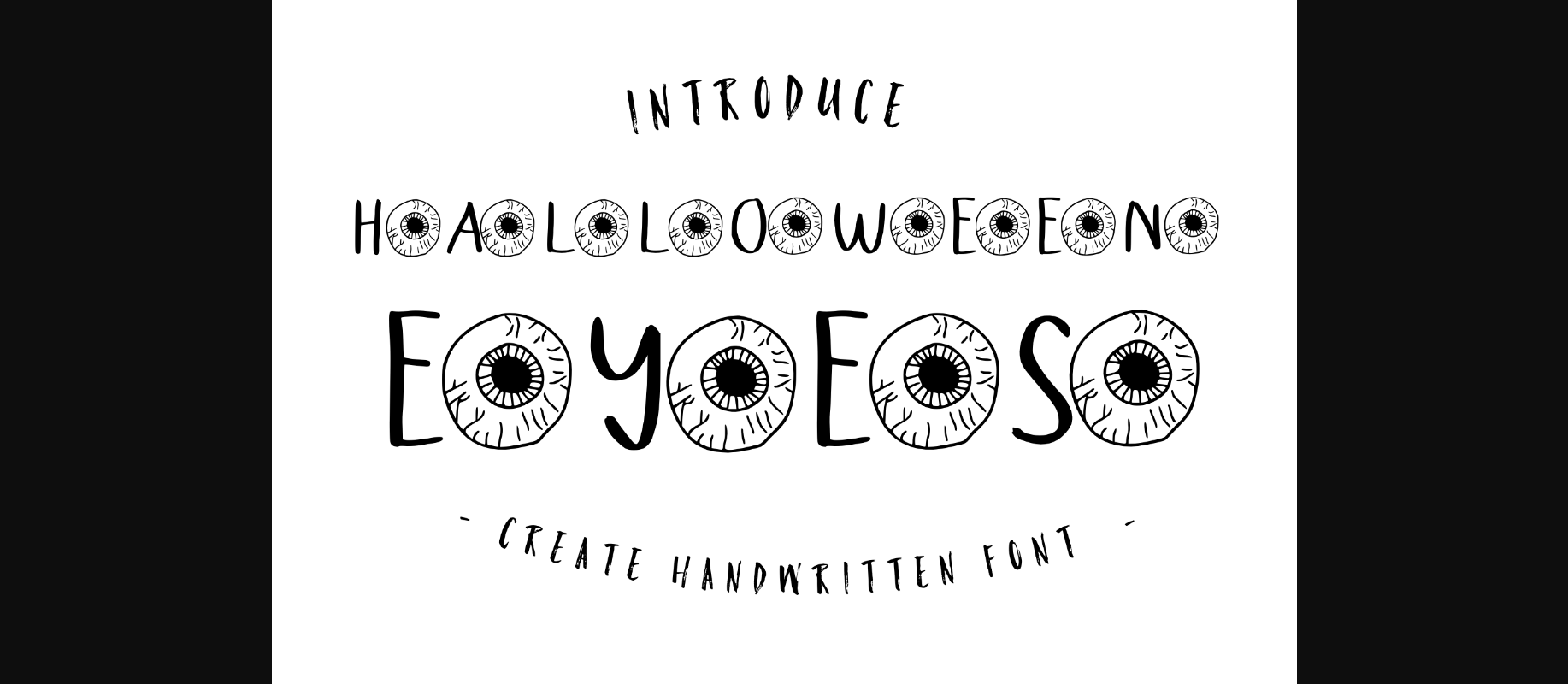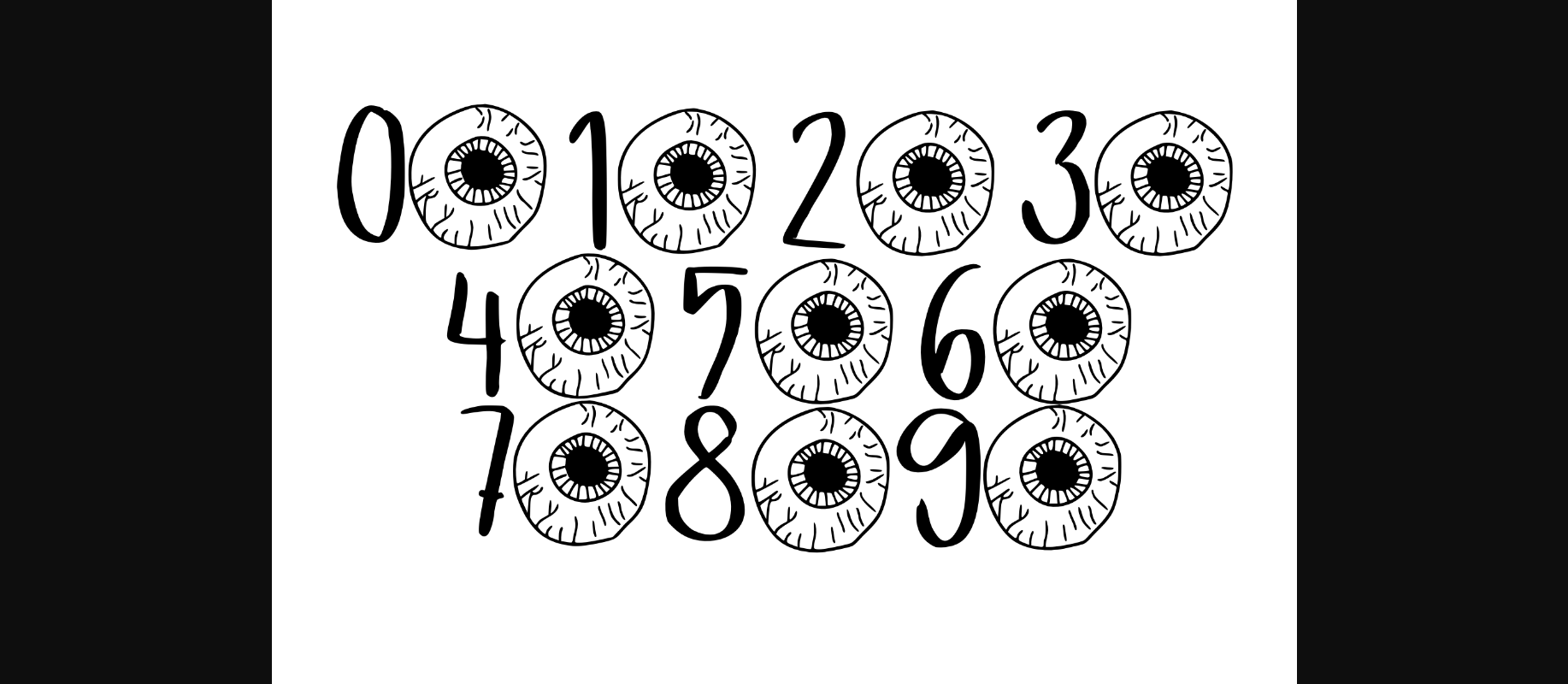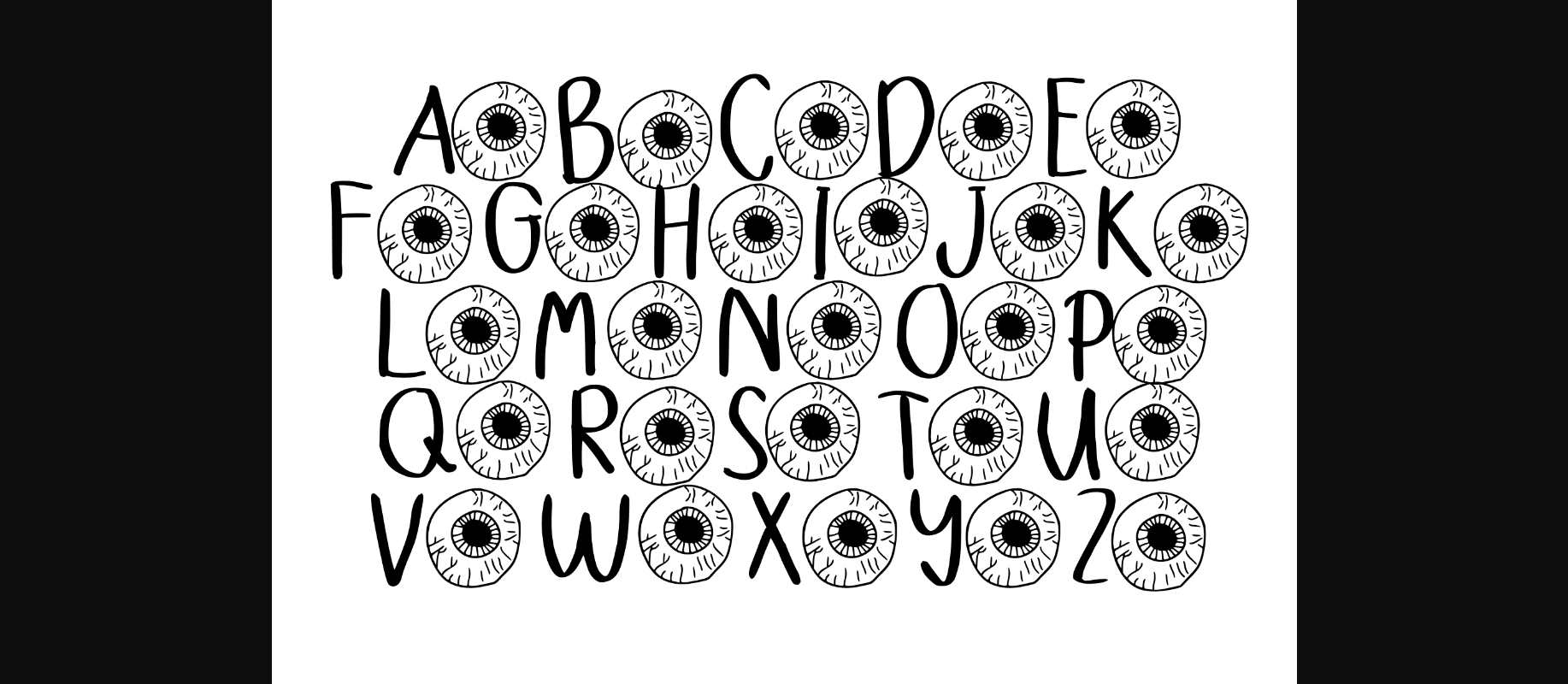
Halloween Eyes Font
About Halloween Eyes Font
Halloween Eyes is an incredibly unique and interesting decorative font, featuring eye ornaments. Add it to your most creative Halloween themed ideas and notice how it makes them stand out!